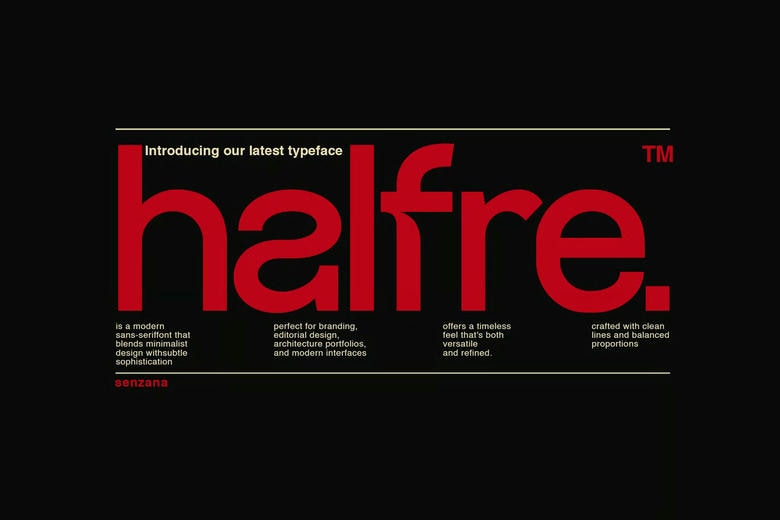
Halfre Font
Halfre is a contemporary sans serif typeface that is created with purposeness and accuracy. Halfre has its clean lines, symmetry of lines, and adaptable shape, making it such that whichever way it is applied, it adds silent confidence to any composition be it in branding, editorial layout, UI design, or minimalist packaging.
Designed to focus on simplicity and beauty, Halfre is a combination of modern design and classic simplicity. Every character is made to speak easily and in a clear manner, and therefore it is the ideal one to choose by an artist who appreciates functionality and does not compromise style.
Halfre makes a sharp modern sound, whether you need to create a digital interface or polish the visual voice of a brand, and it works perfectly across all directions.
Halfre Sans Serif Font